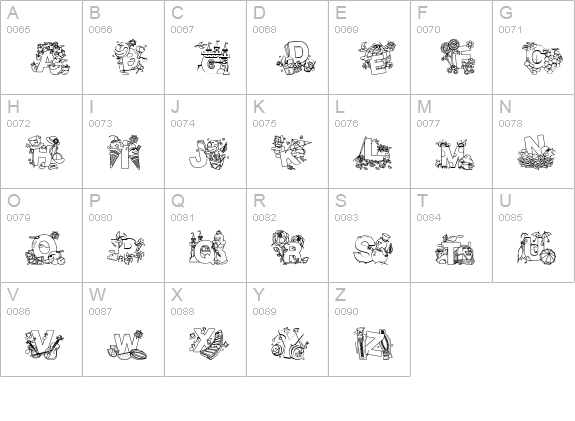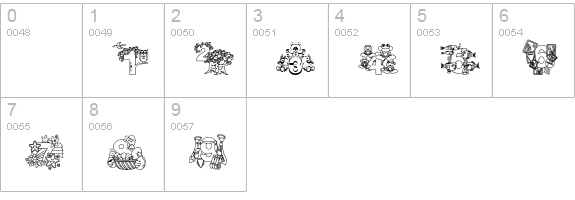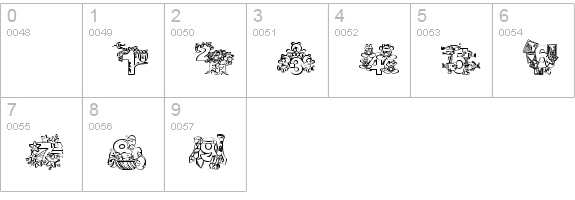
Crayola Kiddy Font Font Details
Crayola Kiddy Font is a whimsical and playful typeface that captures the essence of childhood creativity and fun. With its rounded edges and cheerful demeanor, this font is perfect for any project aimed at a young audience or anyone looking to add a touch of lightheartedness to their designs. The Crayola Kiddy Font is freely available to download at FontsMarket.com, making it easily accessible for designers and creators looking to bring a sense of innocence and joy to their work. Whether you're working on a children's book, a party invitation, or a playful logo, this font is sure to delight and inspire. Let your imagination run wild with Crayola Kiddy Font!